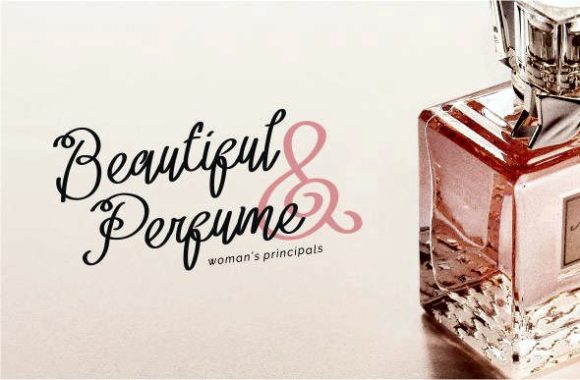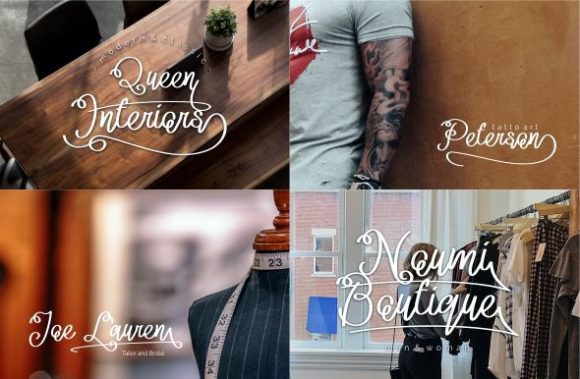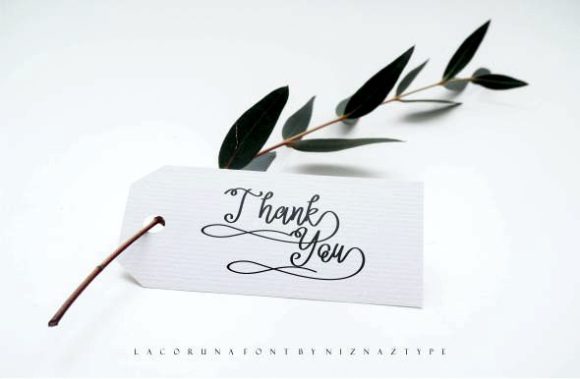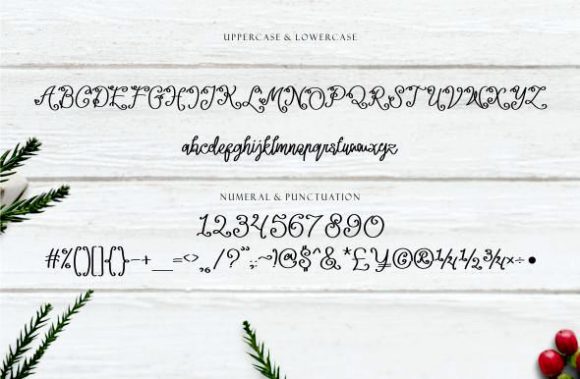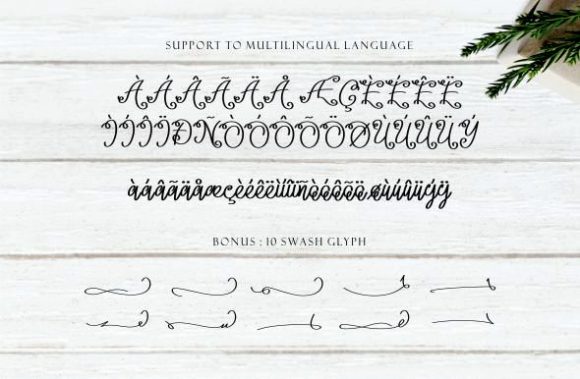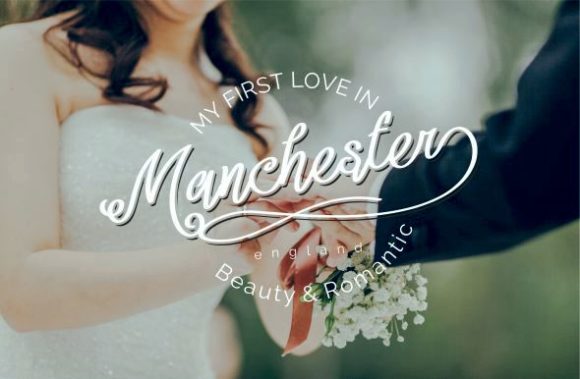
Lacoruna Font
About Lacoruna Font
Lacoruna is a new handwritten font suitable for all your graphic design needs.
Give your next project a personal touch with this amazing new font.